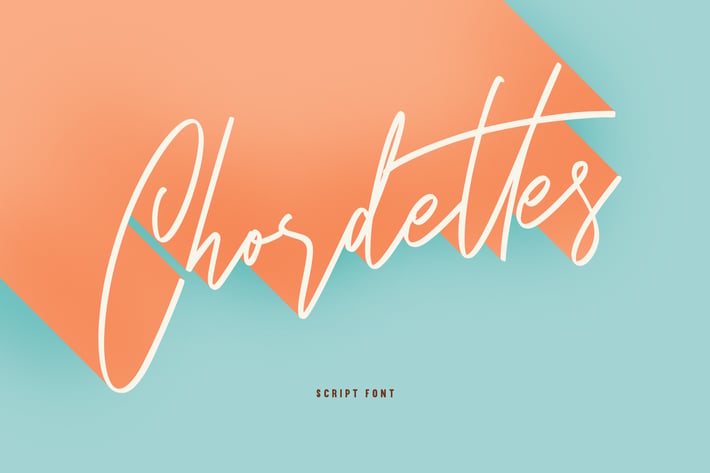
Chordettes Signature Script Brush Handmade Font
Give your designs an authentic handcrafted feel. "Chordettes Typeface" is perfectly suited to stationery, logos and much more.